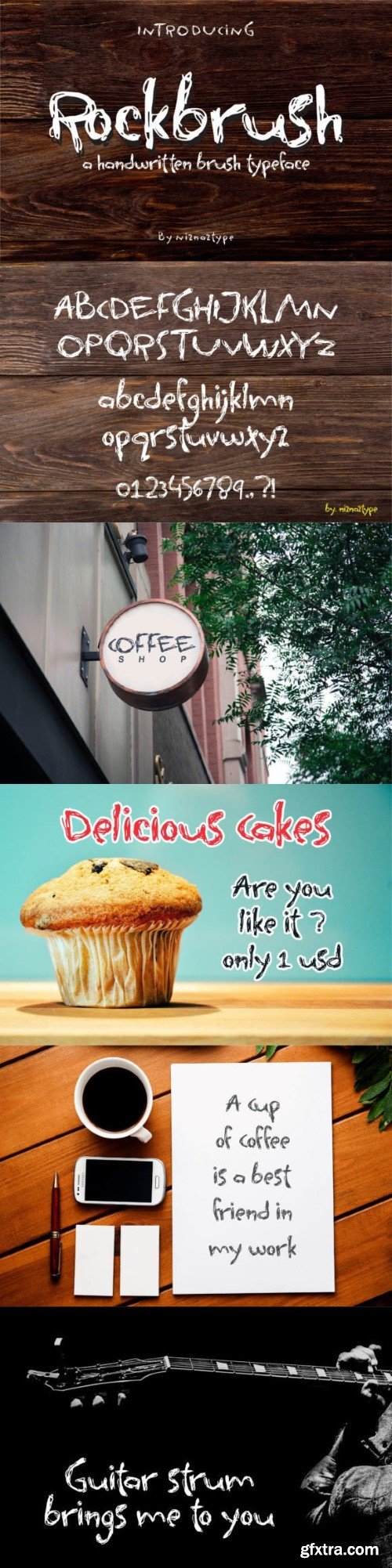
洛克布鲁斯字体
Rockbrush is a rough and grudgy handwritten font. Its natural and unique style makes it incredibly fitting to a large pool of designs. The only limit is your imagination!